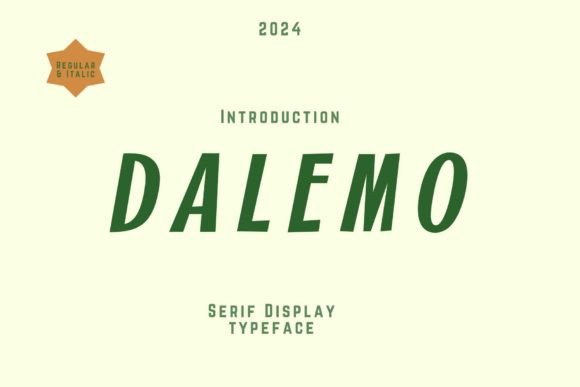
Dalemo Font: A Playful Retro Font for Modern Designs
Are you looking for a font that can add a touch of playfulness and nostalgia to your designs? Look no further than Dalemo, a retro font inspired by the fabulous mid-century design. In this article, we’ll introduce you to Dalemo, a font that can be easily used in modern contexts, and explore its various uses in designing beautiful headers, cozy event posters, holiday greetings cards, and products for kids.
What is Dalemo Font?
Dalemo is a playful retro font that draws inspiration from the iconic designs of the mid-century era. Its unique and quirky style makes it perfect for designs that require a touch of nostalgia and whimsy. The font is designed to be versatile, making it suitable for a wide range of applications, from digital designs to print materials.
One of the standout features of Dalemo is its ability to evoke a sense of playfulness and fun. The font’s irregular shapes and bold lines give it a distinctive look that’s sure to grab attention. Whether you’re designing a logo, a poster, or a social media graphic, Dalemo is a great choice for adding a touch of personality to your work.
Uses of Dalemo Font
Dalemo is a versatile font that can be used in a variety of design contexts. Here are some of the ways you can use Dalemo to elevate your designs:
- Beautiful Headers: Dalemo is perfect for creating eye-catching headers that add a touch of personality to your designs. Its bold lines and irregular shapes make it stand out from more traditional fonts.
- Cozy Event Posters: Whether you’re designing a poster for a music festival, a food festival, or a charity event, Dalemo is a great choice. Its playful style adds a touch of whimsy and fun to your designs.
- Holiday Greetings Cards: Dalemo is especially well-suited for holiday greetings cards. Its festive style and playful vibe make it perfect for adding a personal touch to your holiday cards.
- Kids’ Products: Dalemo is a great choice for designing products for kids, such as toys, games, and educational materials. Its playful style and fun vibe make it perfect for engaging young audiences.
Tips for Using Dalemo Font
Here are some tips for getting the most out of Dalemo:
- Experiment with Colors: Dalemo looks great in a variety of colors, so don’t be afraid to experiment and find the perfect color scheme for your design.
- Mix and Match: Dalemo can be paired with a variety of other fonts to create a unique and interesting design. Try mixing and matching Dalemo with other fonts to see what works best for your project.
- Keep it Simple: While Dalemo is a playful font, it’s still important to keep your design simple and easy to read. Make sure to balance your text with plenty of white space to avoid overwhelming your audience.
Benefits of Using Dalemo Font
Here are some of the benefits of using Dalemo in your designs:
- Unique Style: Dalemo has a unique and distinctive style that’s sure to grab attention.
- Versatility: Dalemo can be used in a wide range of design contexts, from digital designs to print materials.
- Playful Vibe: Dalemo adds a touch of playfulness and whimsy to your designs, making it perfect for engaging audiences.
In conclusion, Dalemo is a playful retro font that’s perfect for adding a touch of nostalgia and whimsy to your designs. Its unique style, versatility, and playful vibe make it a great choice for a wide range of design applications. Whether you’re designing beautiful headers, cozy event posters, holiday greetings cards, or products for kids, Dalemo is a great font to have in your design toolkit.